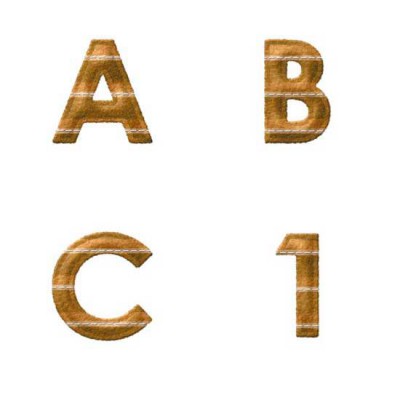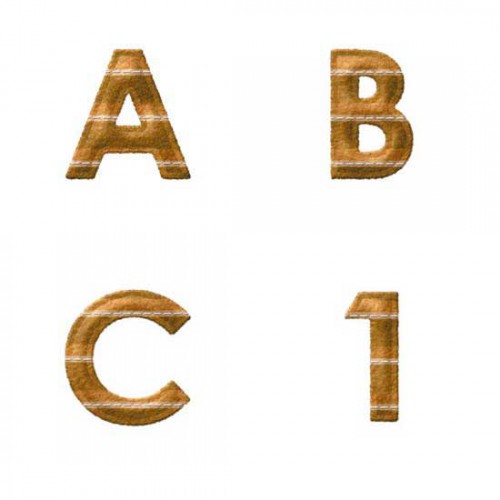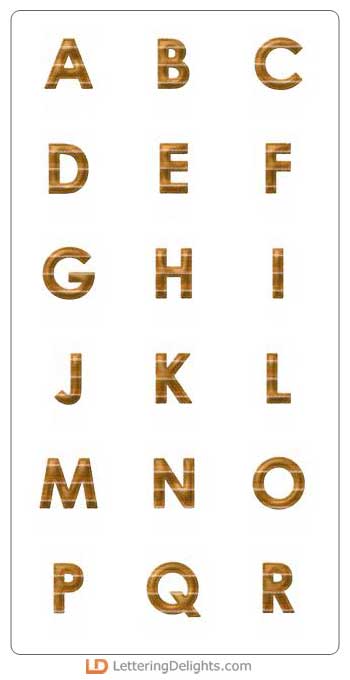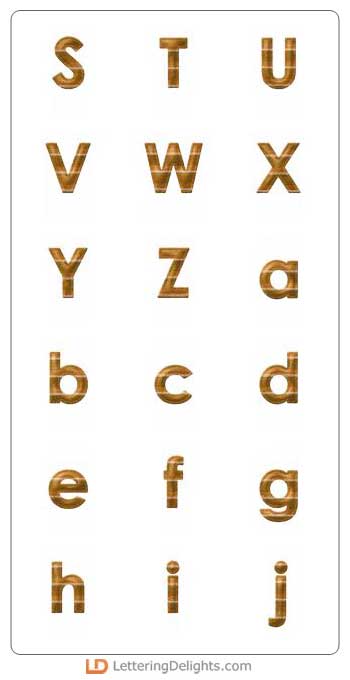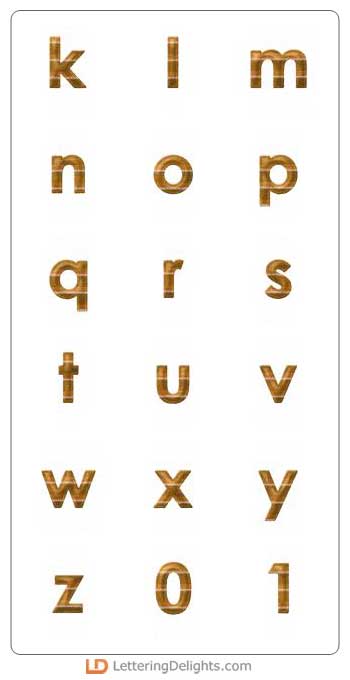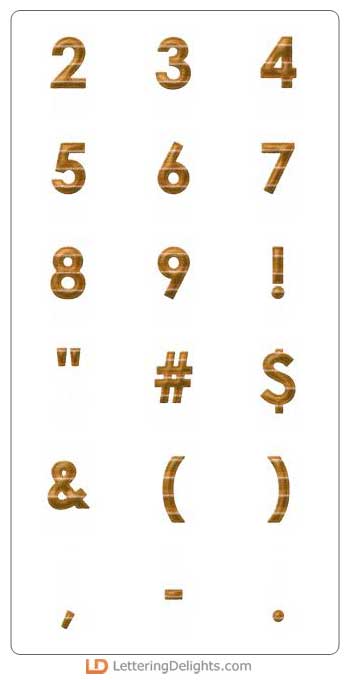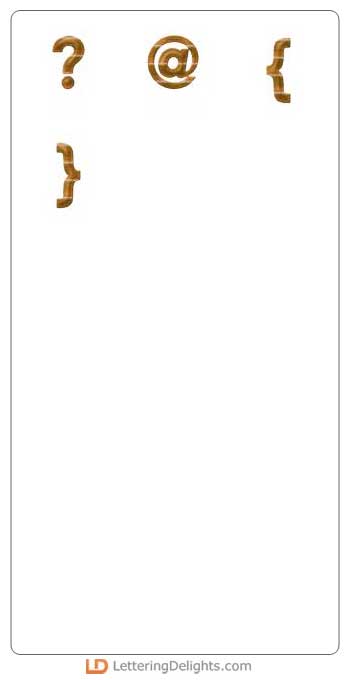
Do you have a favorite sweater or blanket? It's such a comforting item, isn't it? All the Fuzzy Fleece Alphabets are full of warm and snuggly characters that will add texture to your creations.